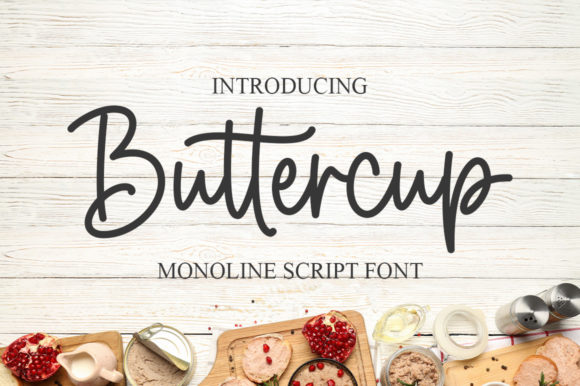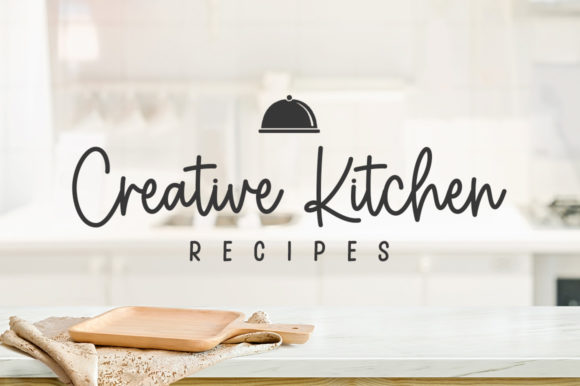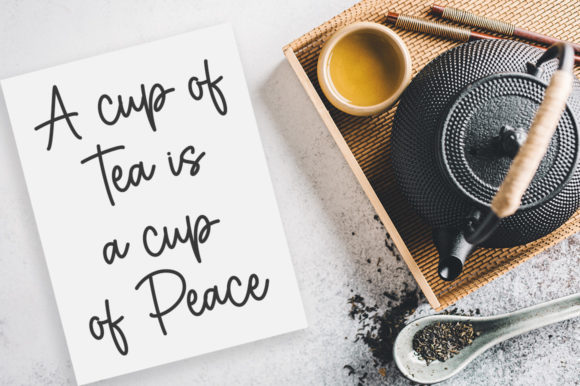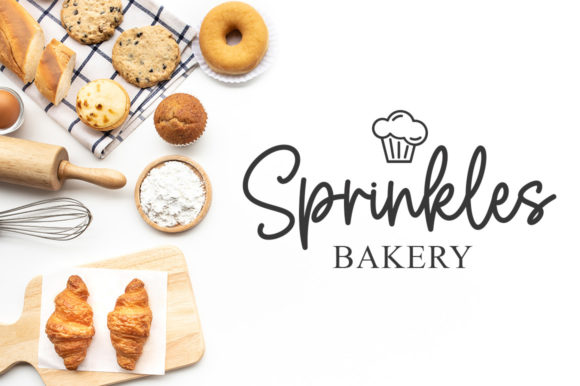
Buttercup Font: Dainty Handwritten Script for Wedding & Branding Design
About the Buttercup Font
Crafted with precision, the Buttercup Font is ready to bring your ideas to life. Buttercup is a dainty and flowing handwritten font.
Sweet and joyful, this font will be ideal for writing wedding invitations, cards, or any other design that may need a romantic, personalized touch!
Buttercup’s delicate nature makes it perfect for projects requiring a touch of whimsy and personal warmth; think wedding stationery, branding for artisanal goods, or short, impactful quotes on social media graphics. However, its low x-height and flowing forms make it unsuitable for extended body text or UI elements where readability is paramount.
For optimal visual harmony, pair Buttercup with a clean sans-serif like Montserrat for a modern contrast, or a classic serif such as Garamond for a more traditional feel. A playful script font could enhance the romantic theme, while a geometric sans-serif could provide a striking counterpoint to its organic forms.
Buttercup’s overall personality is undeniably cheerful and romantic, conveying a sense of handcrafted charm and gentle elegance. Its limited versatility should be considered when selecting projects; its best applications are those where its delicate charm is a key design element.
Buttercup Font Usage Examples
Buttercup Font Example